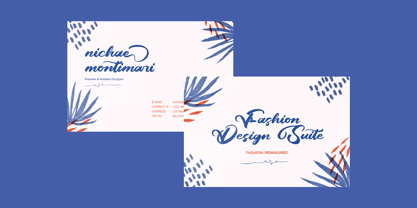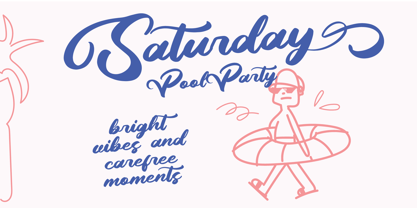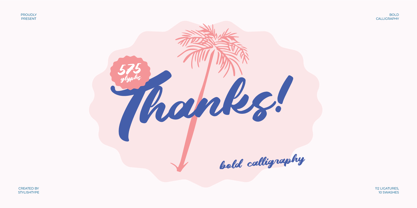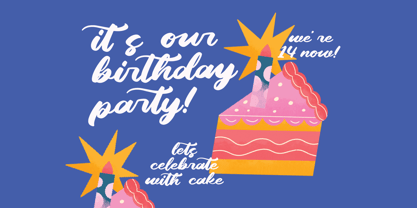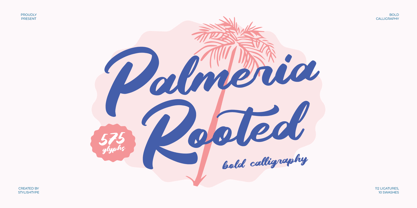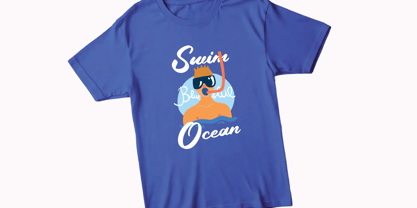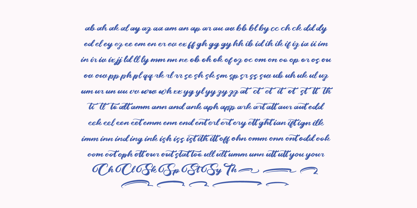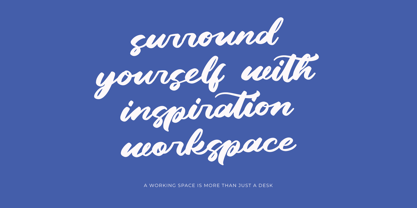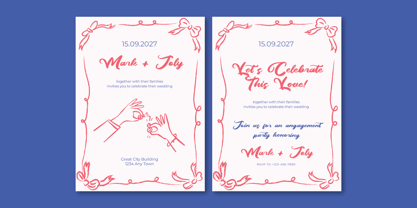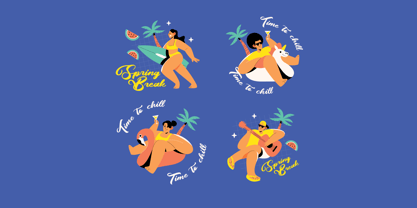
Palmeria Rooted
The Palmeria Rooted Font Family was designed by Heru Utama Putra and published by Letterena Studios. Palmeria Rooted contains 2 styles and family package options. More about this family
Palmeria Rooted is a bold calligraphy script font infused with tropical charm, smooth brush strokes, and a warm handwritten energy. Designed to evoke vacation vibes, sun-soaked beaches, and playful summer moments, this typeface is perfect for beach branding, café menus, packaging, travel posters, social media quotes, apparel, and expressive lifestyle logos. Its fluid motion and confident curves create a friendly, uplifting, and refreshing aesthetic.